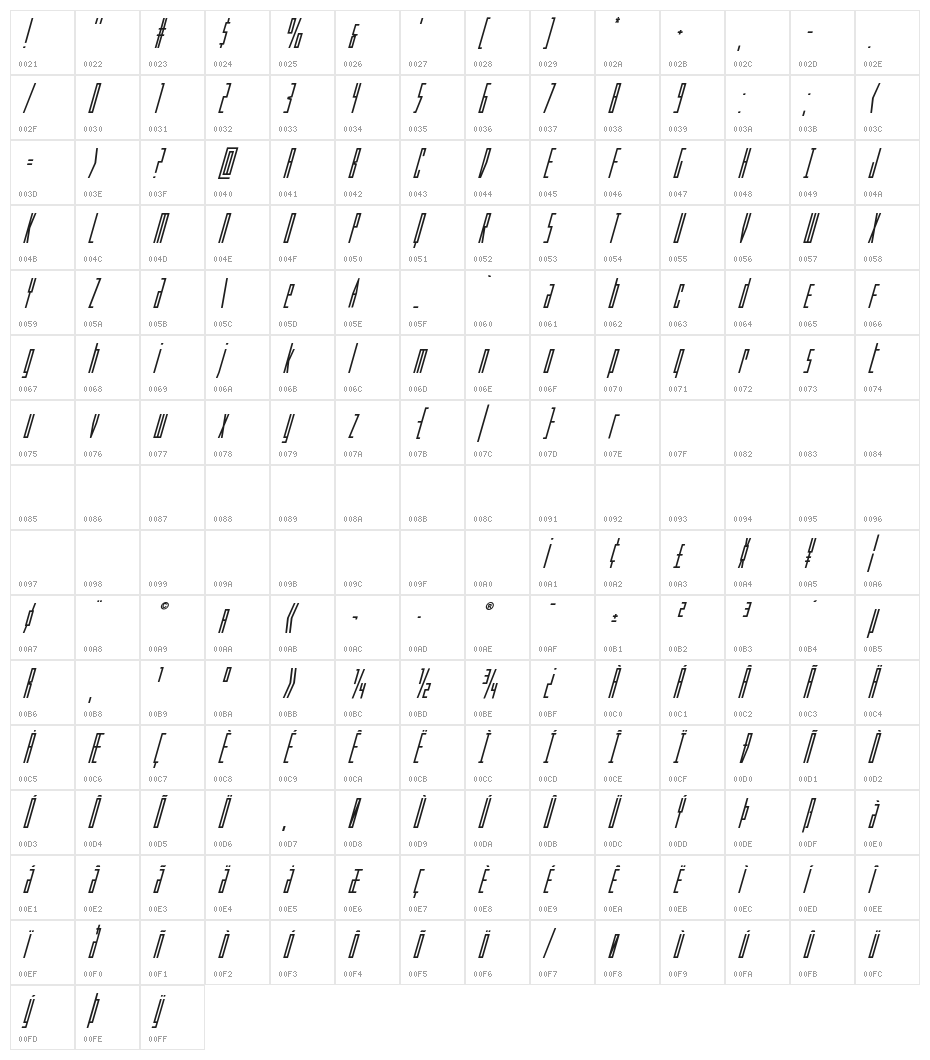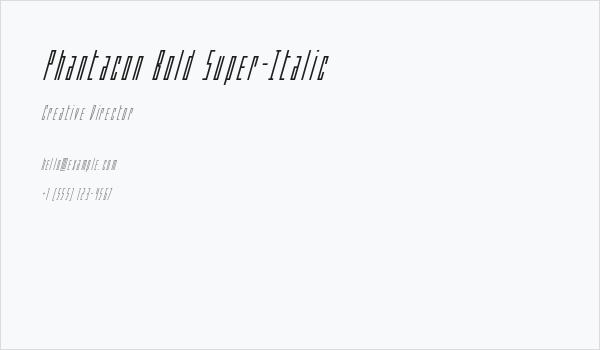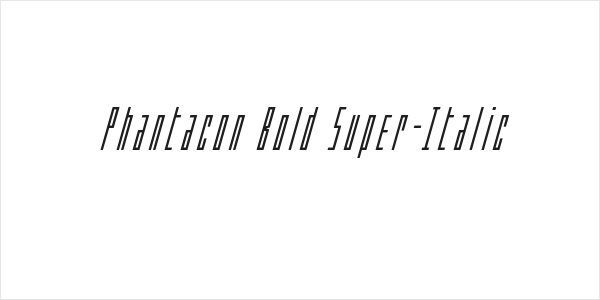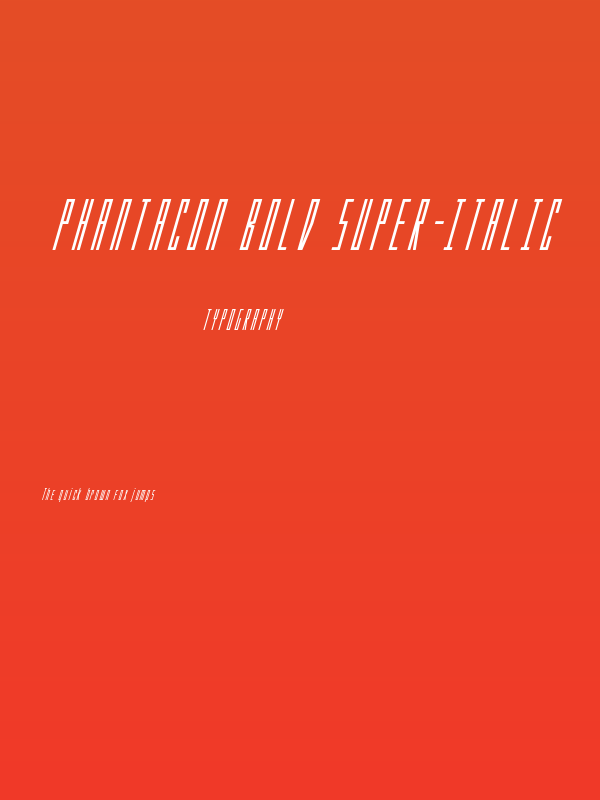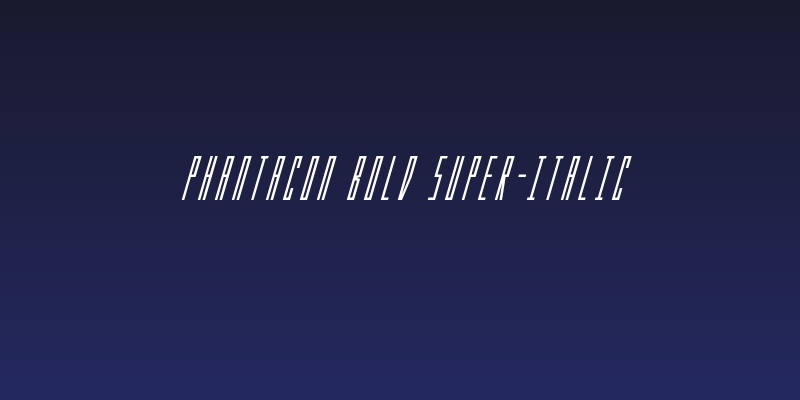
Phantacon Bold Super-Italic Font
Phantacon Bold Super-Italic Description
This font features a bold and dynamic style with a pronounced italic slant, giving it a sense of motion and energy. The characters are tall and narrow, with sharp angles and clean lines that create a futuristic and modern appearance. The uppercase and lowercase letters maintain a consistent height, contributing to a uniform look across text. The numerals and special characters are designed to match the overall sleek aesthetic, making them suitable for a variety of applications. The font's distinctive style is ideal for projects that require a strong visual impact.
| Overall Style | Modern, Futuristic |
| Proposed Projects | Ideal for branding, advertising, posters, and any project needing a modern, dynamic look. |